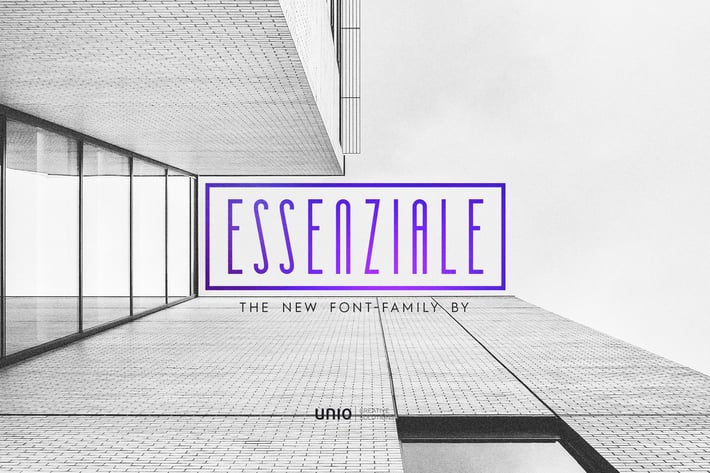
Essenziale - Font Family
Unio presents “Essenziale - Font Family”.
“Essenziale” it's our vision of the contemporary cleanliness and essentiality while encompassing the sinuosity of geometry.
This minimalist ultra condensed type-family is composed by a set of 8 fonts including: Regular, Bold, Slab, Slab Bold weights with corresponding true italics.
Each font style features an extended characters set for a grand total of 412 glyphs with full multi-language support, open type functions and a group of 30 ligatures as well.